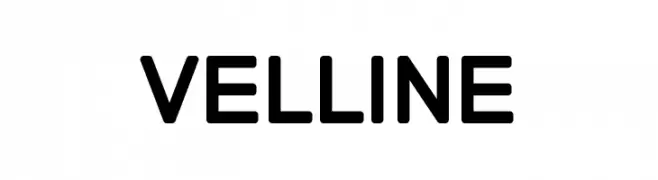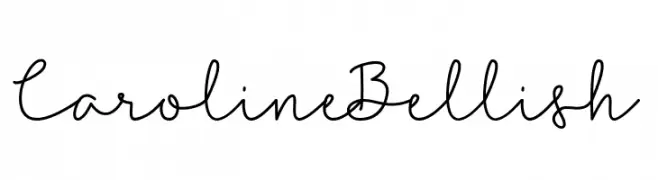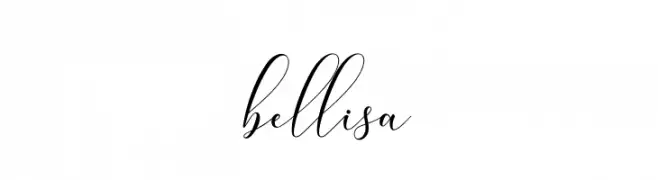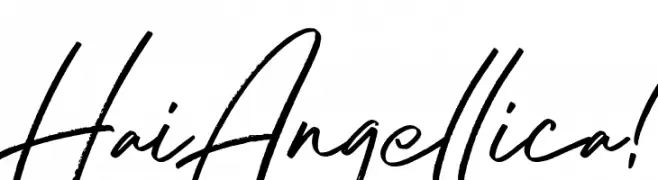
A bold, modern sans-serif font with geometric influences.
A scratchy, hand-drawn font with a rebellious and edgy style.
A charming handwritten script with smooth, flowing characters.
An elegant script font with flowing, cursive lines and a refined appearance.
A flowing, cursive font with an elegant and artistic flair.
A rebellious, hand-drawn font with jagged, dynamic strokes.
A bold, expressive brush script font with a dynamic, hand-painted style.
A dynamic and expressive handwritten font with fluid, spontaneous strokes.
A lively and flowing script font with elegant, fluid strokes.
A sophisticated script font with flowing, connected letters and a graceful appearance.